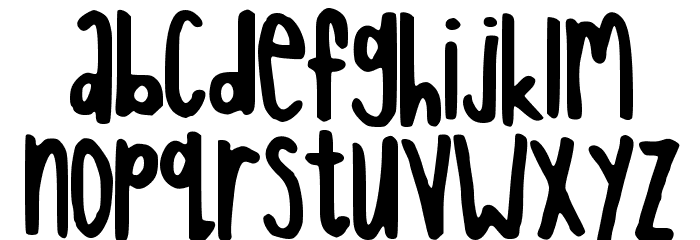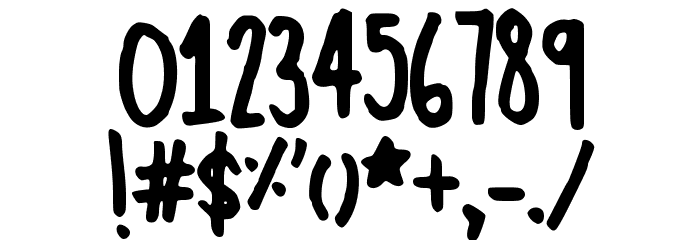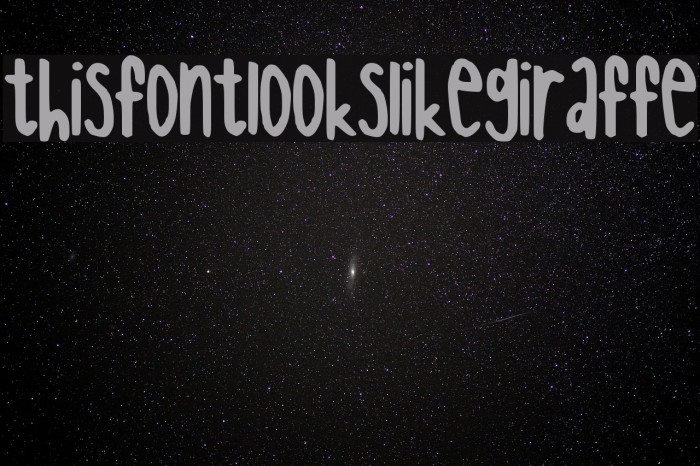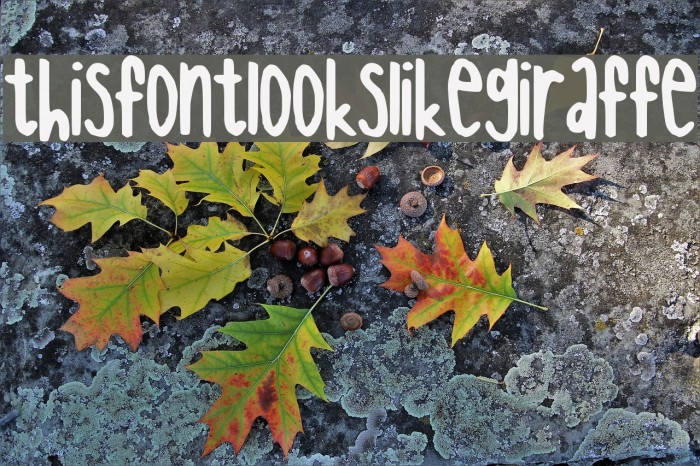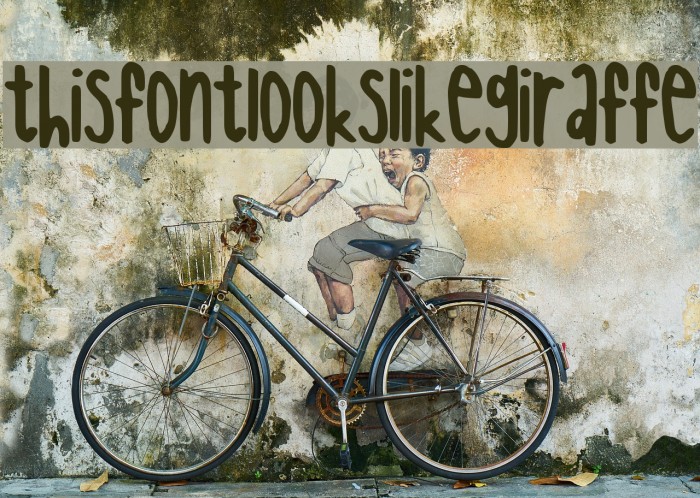
thisfontlookslikegiraffe Font
This playful and whimsical font features a hand-drawn style with irregular, organic shapes that give it a lively and informal appearance. The letters are bold and slightly uneven, adding a sense of movement and personality. The uppercase and lowercase letters maintain a consistent style, with rounded edges and varying stroke widths that create a dynamic look. The numbers and special characters follow the same playful design, making the font versatile for creative projects. Its unique charm makes it suitable for designs that require a fun and approachable feel.
A playful, hand-drawn font with bold, irregular shapes and a whimsical style.
- Proposed Projects: Ideal for children's books, playful branding, greeting cards, and creative posters.